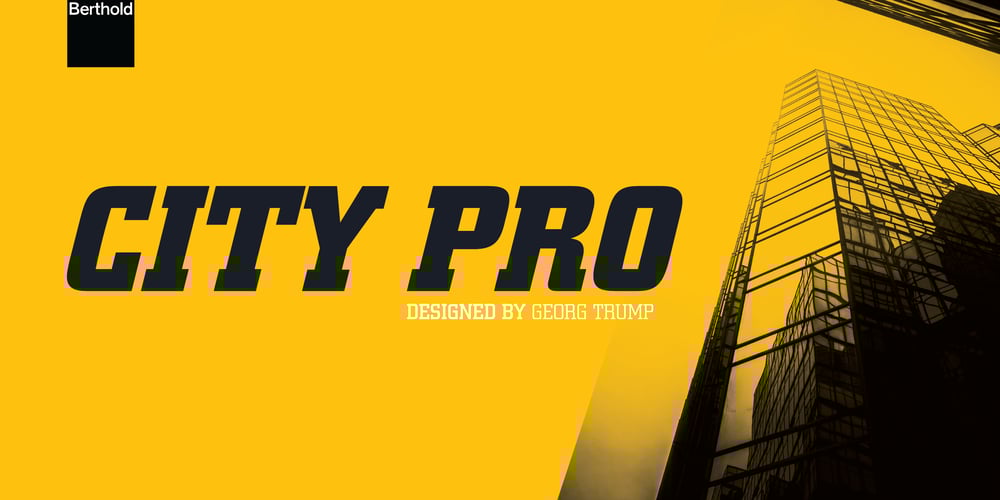
City
City font
City Font Family was designed by Georg Trump and published by Berthold. City contains 6 styles and family package options. Designed for attention and impact in advertising, the first Egyptians or slab serifs appeared at the beginning of the Industrial Revolution (1800s). They regained popularity following World War I and in 1930 Berthold released Georg Trump’s City, a distinctive, rectangular design that evokes a sporty, urban feeling.